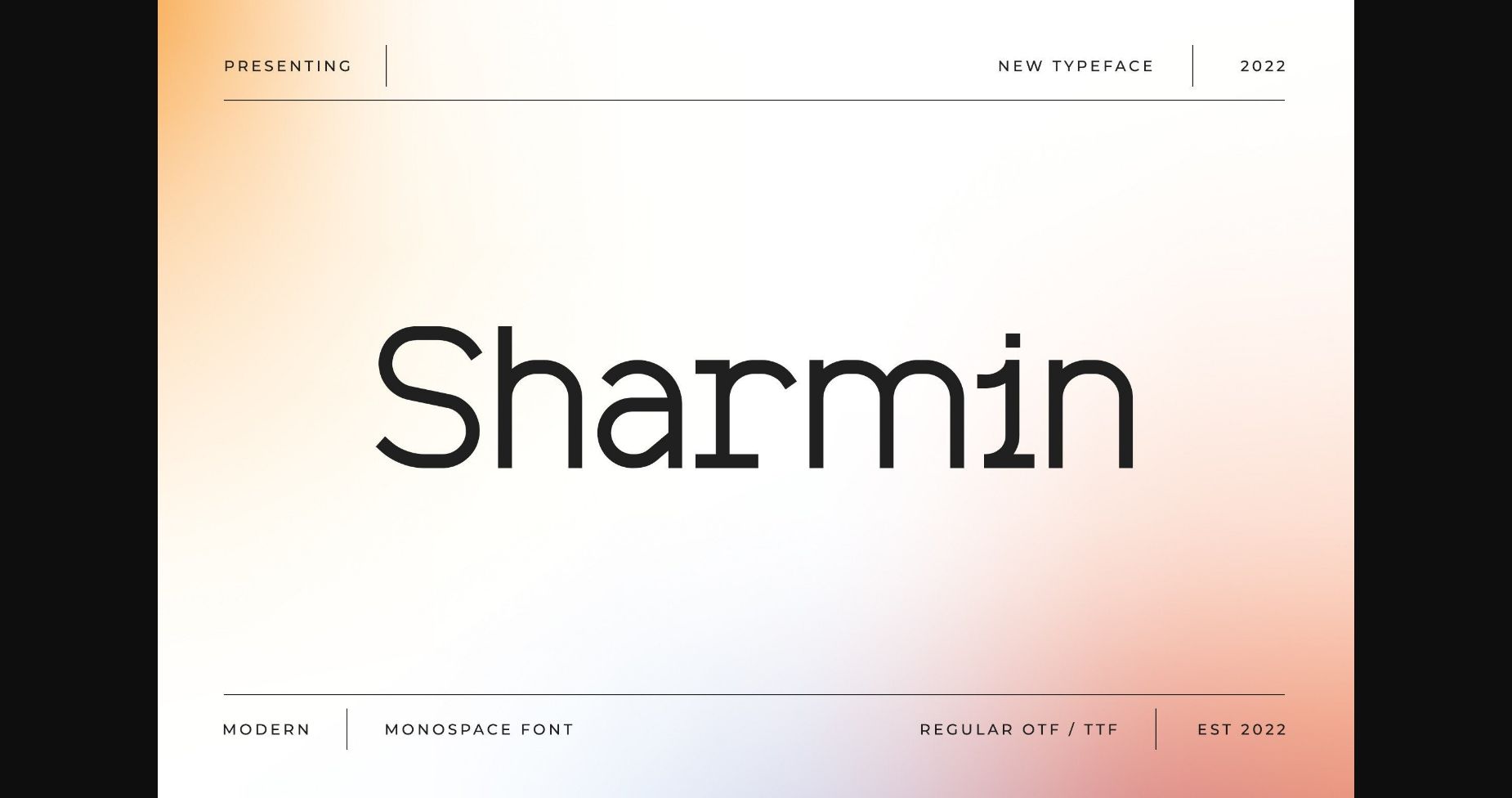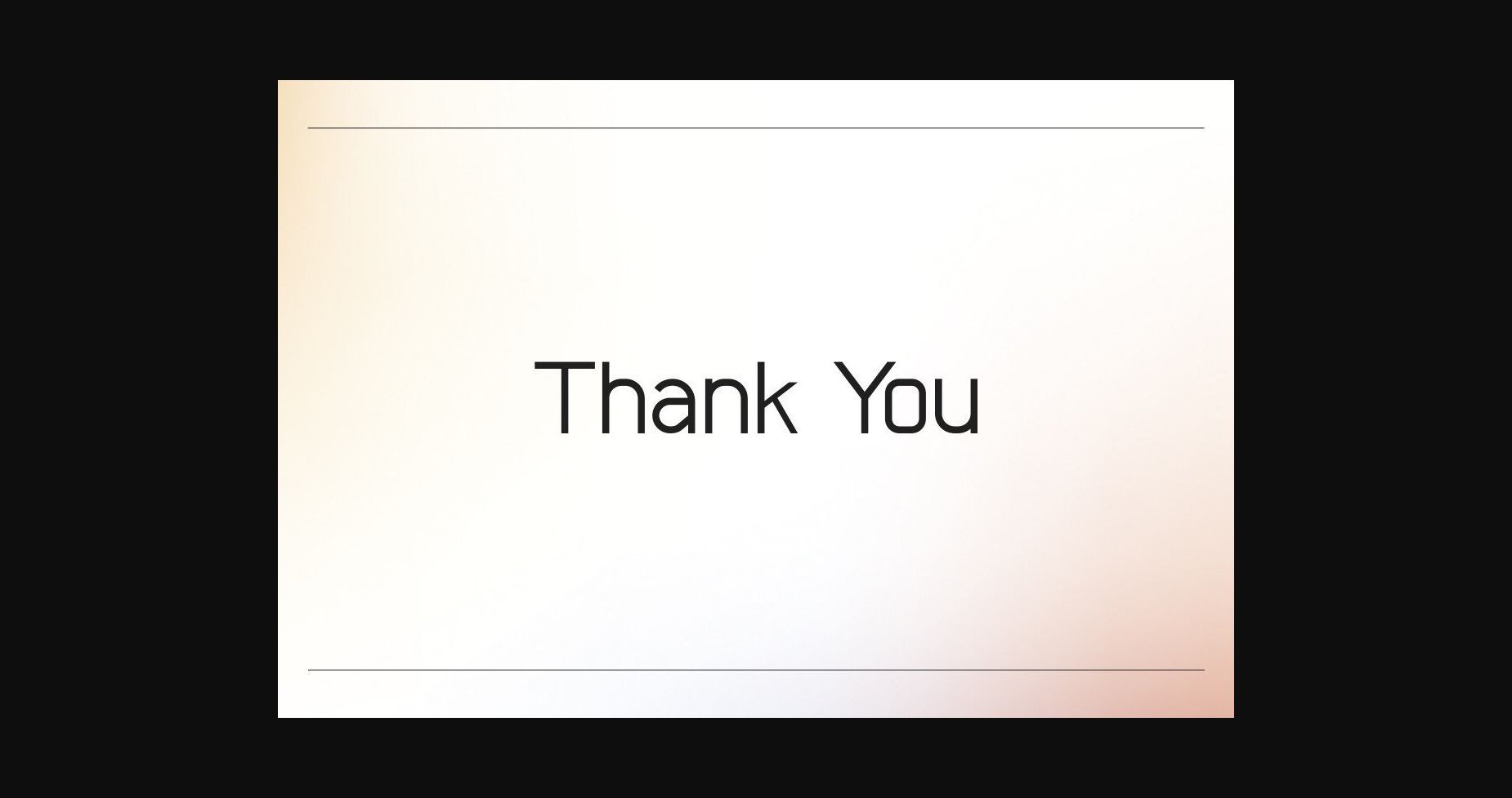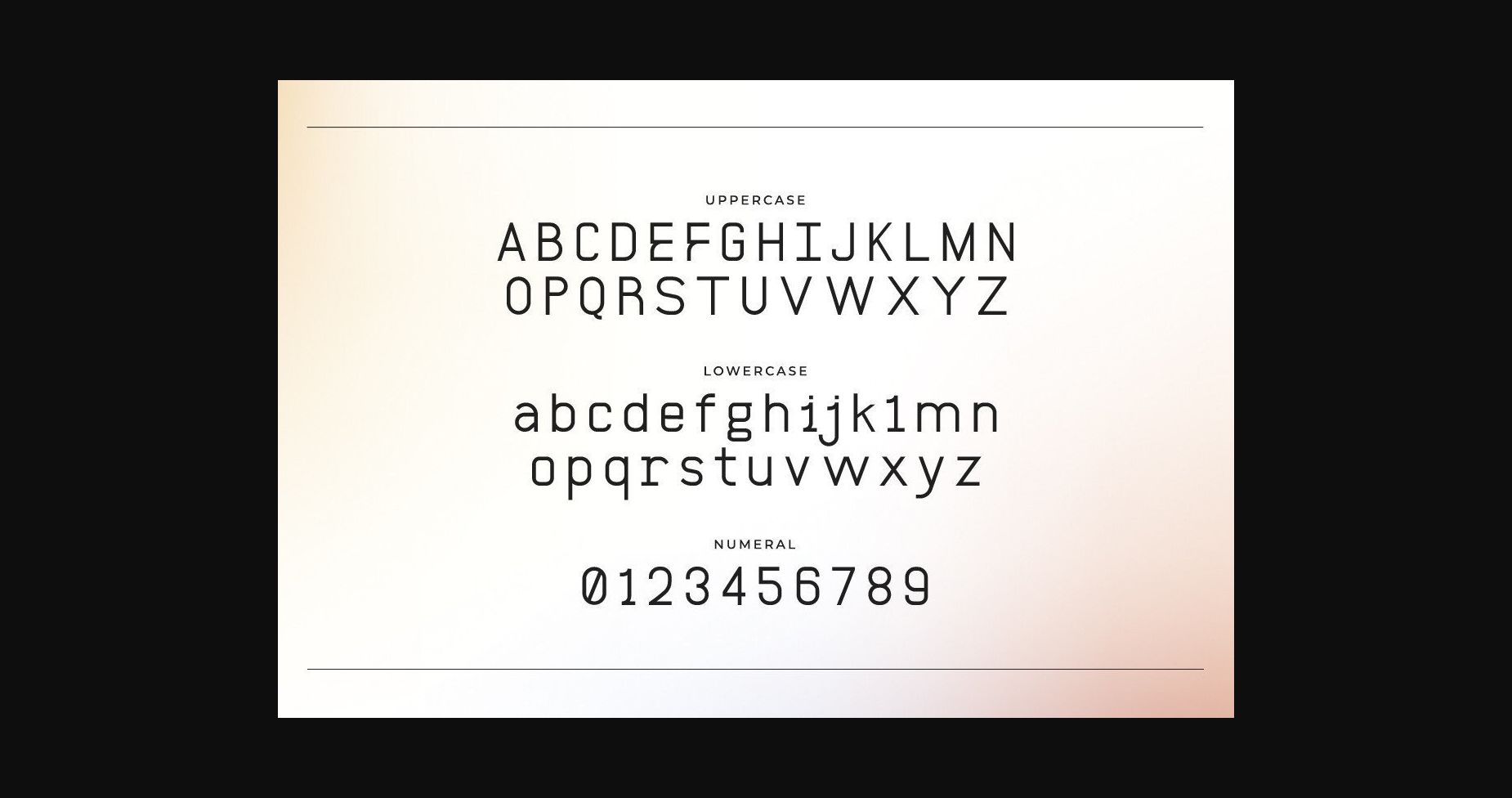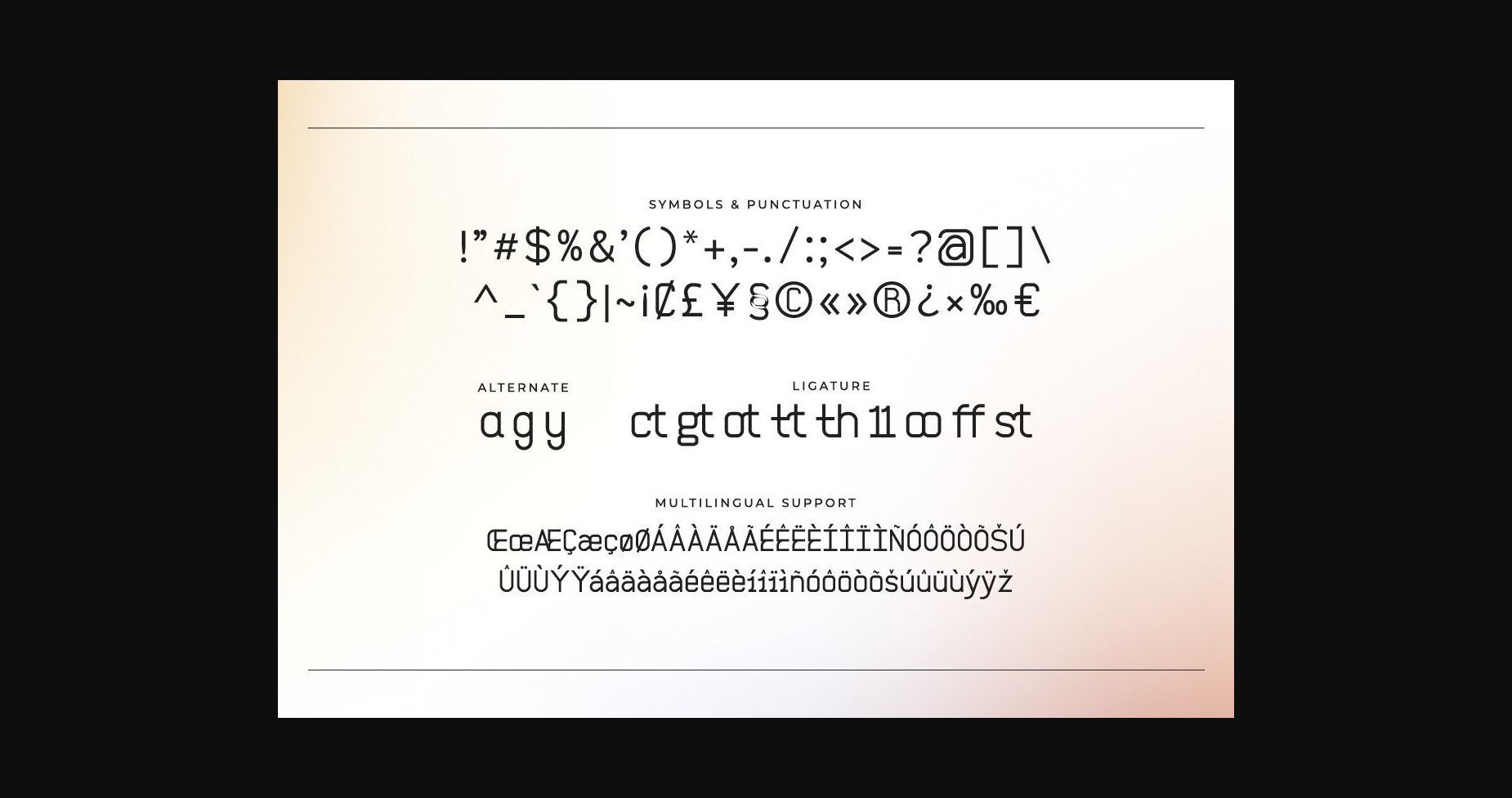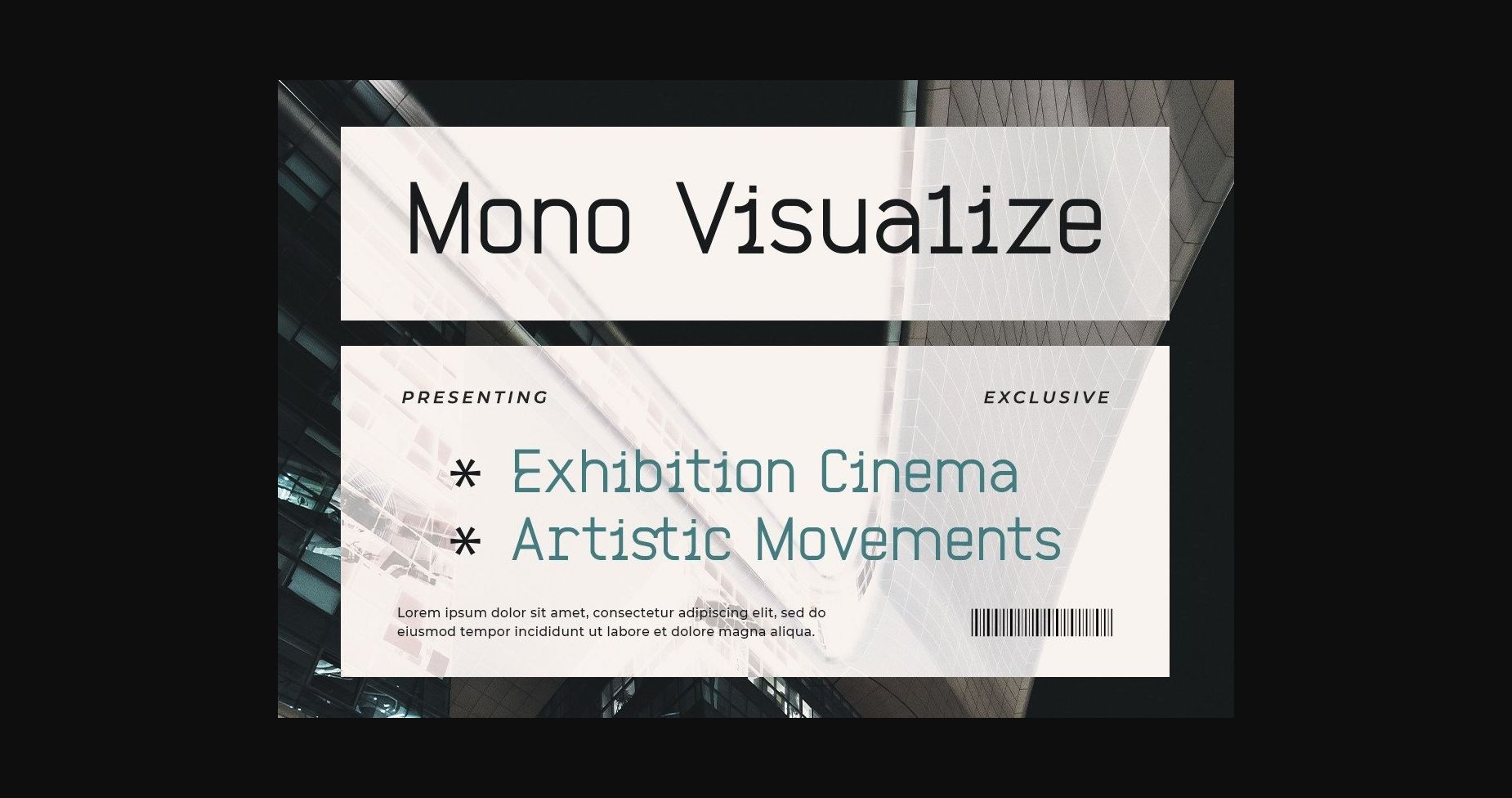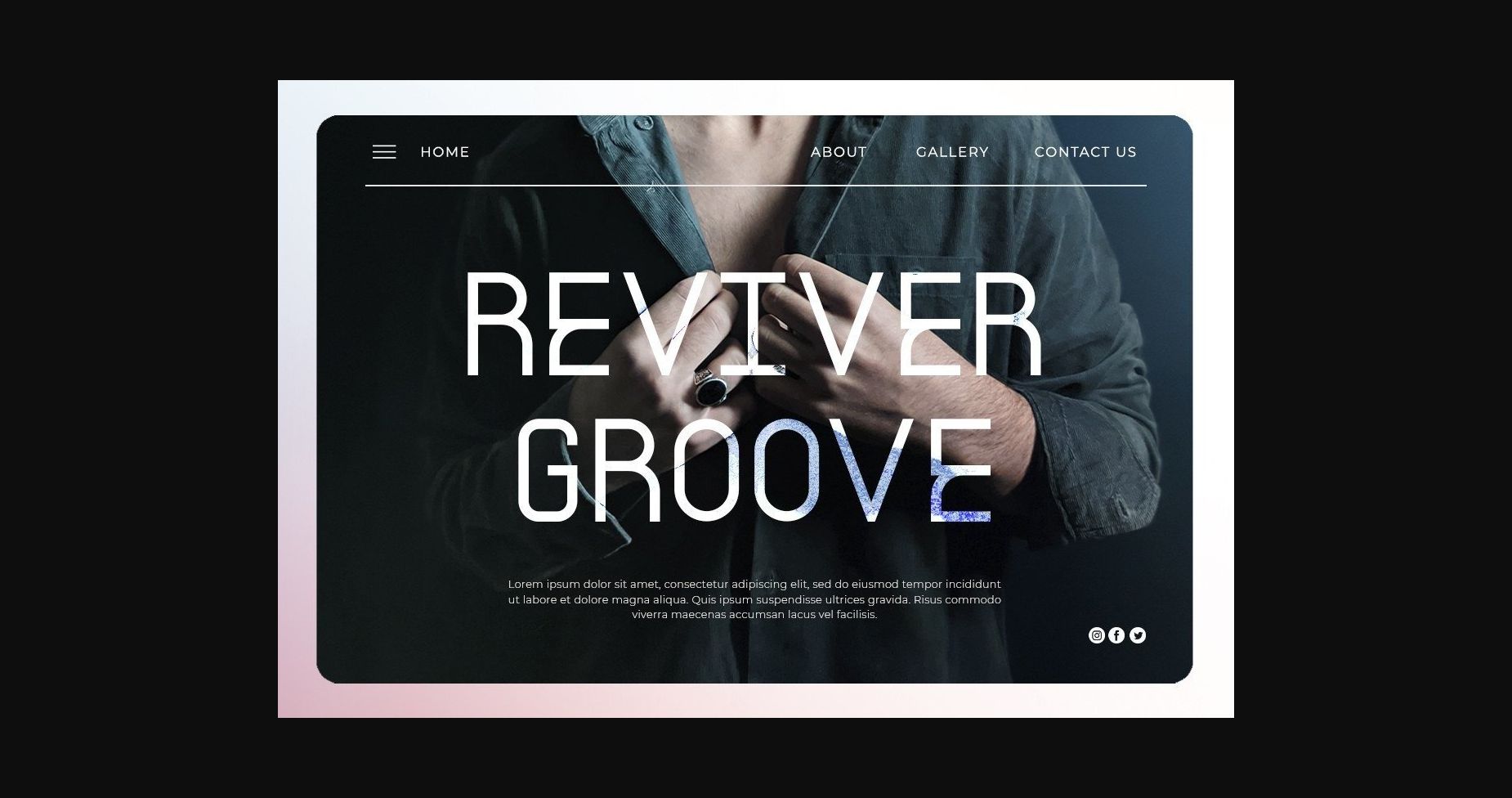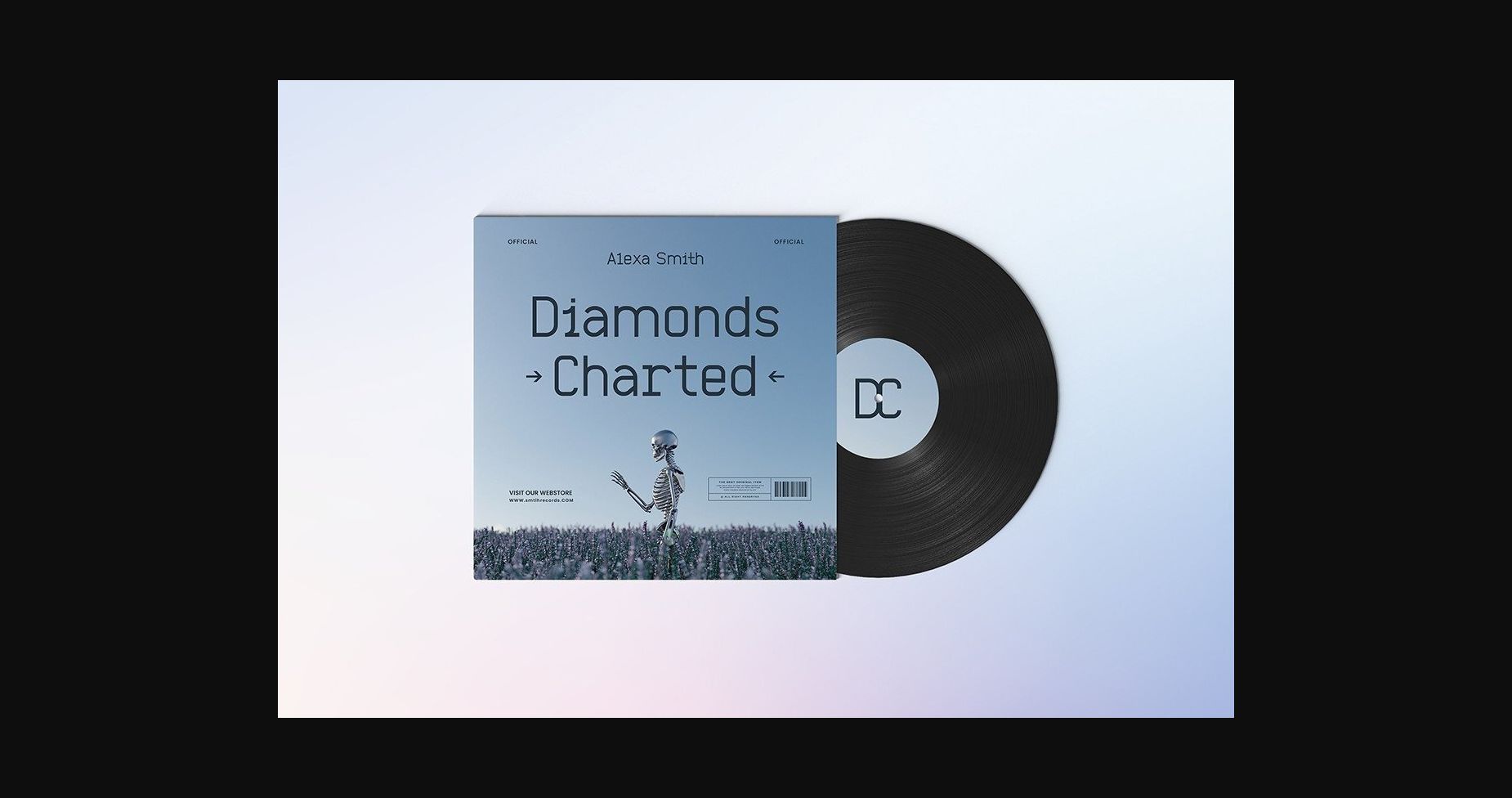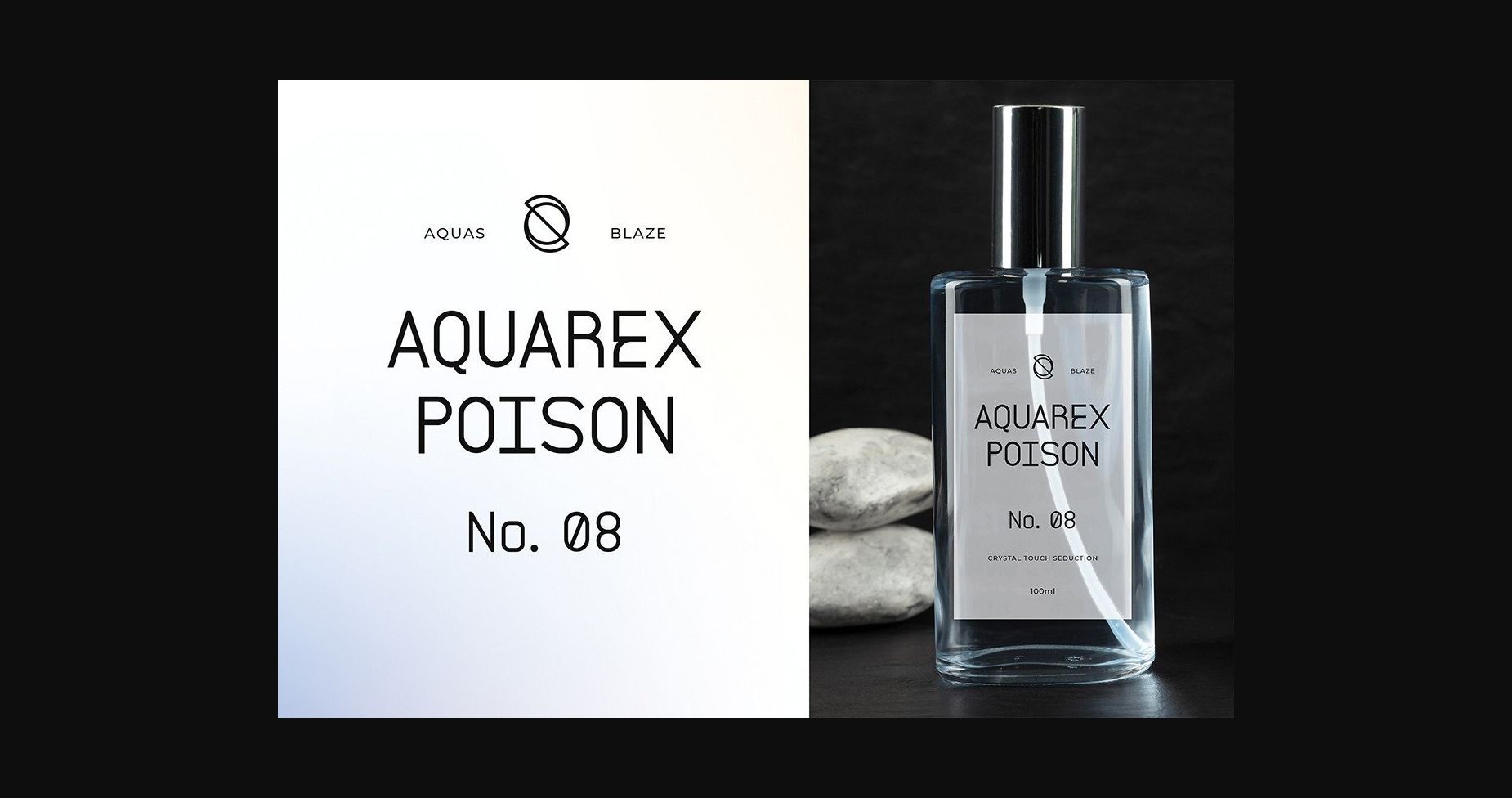
About Sharmin Font
Sharmin is a monospace display font perfect for a wide variety of designs.
Add this beautiful display font to each of your creative ideas, and notice how it makes them stand out!